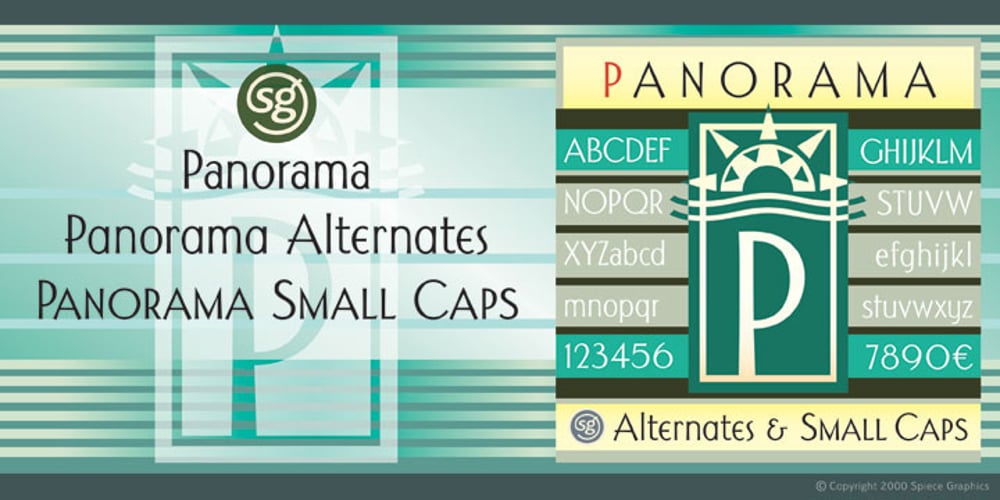
Panorama SG Font Family was designed by Jim Spiece and published by Spiece Graphics. Panorama SG contains 3 styles and family package options. Here is a profoundly delicate and graceful design that has its roots in art deco fashion. This elegant typeface is based on an old 1930s lettering style popularized by Carl Holmes in his wonderful book on the subject. Somewhat condensed with a very tall lowercase, Panorama carries itself beautifully. It is similar to such classics as Stellar and Optima with stems flaring slightly at the ends. Panorama has a great number of alternate capital, small capital, and lowercase characters including two sets of alternate figures. Panorama, Panorama Alts, and Panorama SC are also available in the OpenType Std format. Some new characters have been added to these OpenType versions. Advanced features currently work in Adobe Creative Suite InDesign, Creative Suite Illustrator, and Quark XPress 7. Check for OpenType advanced feature support in other applications as it gradually becomes available with upgrades.